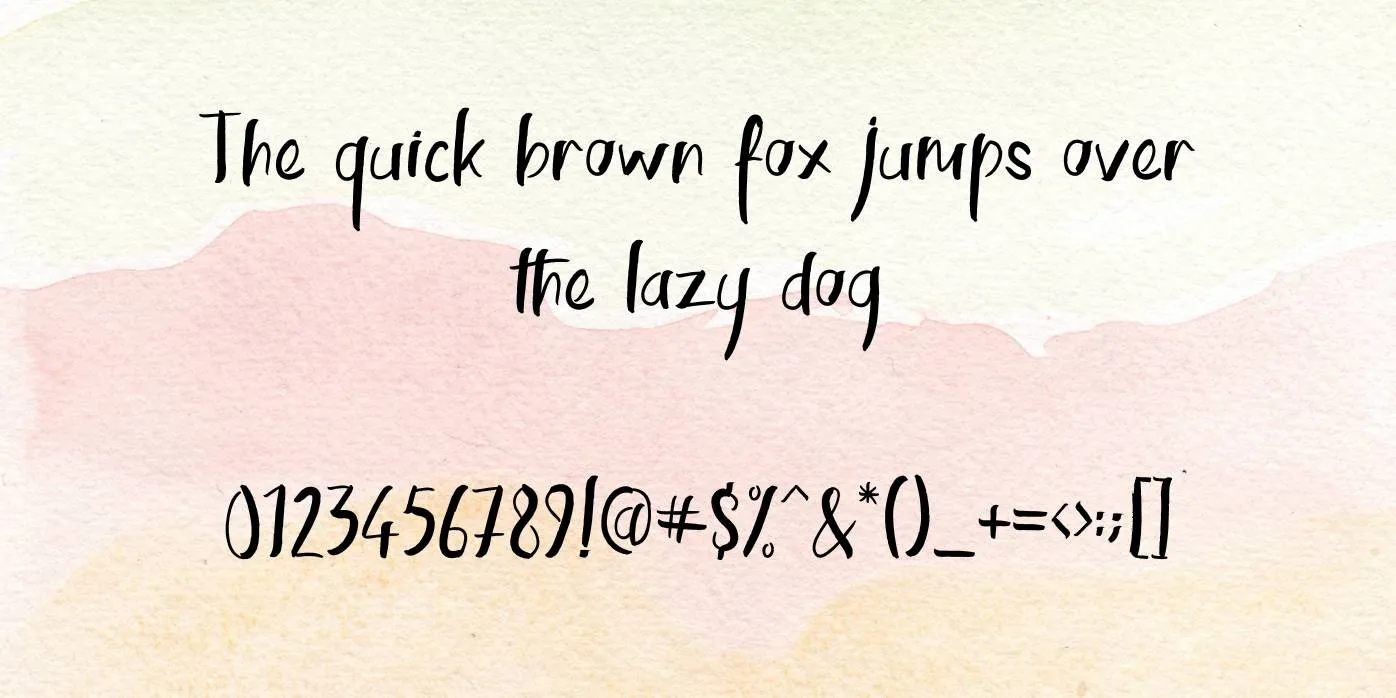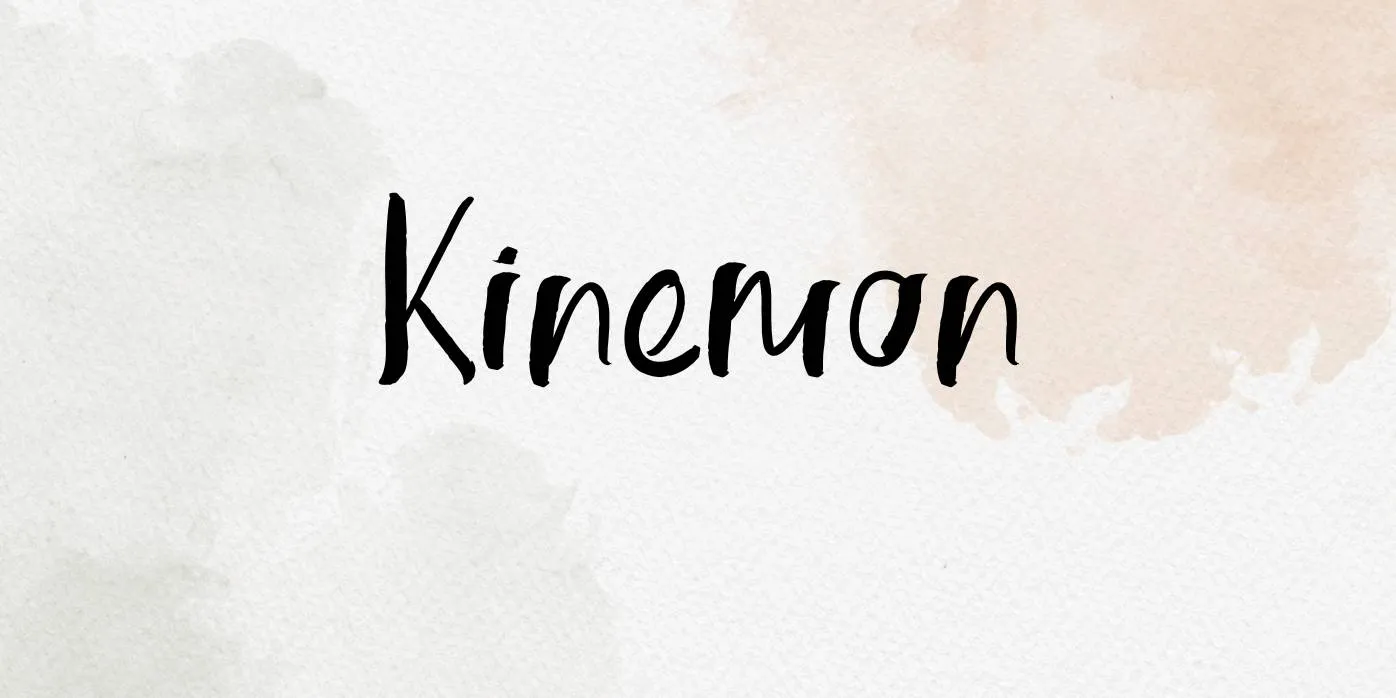
Kinemon Font
Kinemon Font is designed by Wahyu Setiya Rahmawan and manufactured by FactoryType. It is a very nice and clean brush-type font and can be used to design many different projects. Its strong personality can be used to design any type of project personal or commercial. It has many different features which make it perfect for use.
It contains 102 characters, 107 glyphs, and 1000 units per Em. The weight of the font is Semi-Light and its width is semi-condensed. Unicode supported 2.0 and BMP only. An online generator tool also supports this font in which you can copy and paste your text easily and convert it into a stylish look within seconds.
Usage It is a very nice and attractive brush-type font. You can make so many different projects by using this font. This font can be used to design headlines for different projects. You can use this font for making attractive Logos and Titles.
For wedding invitations and other party invitations. It is good for branding and product packing also. You can also print this type of face on T-shirts and mugs for an eye-catching look. Both types of projects print and digital media can be made with this font.